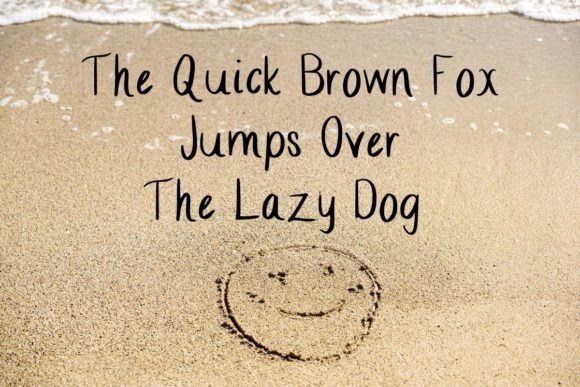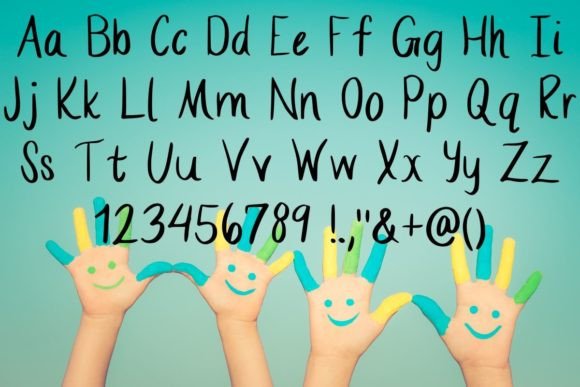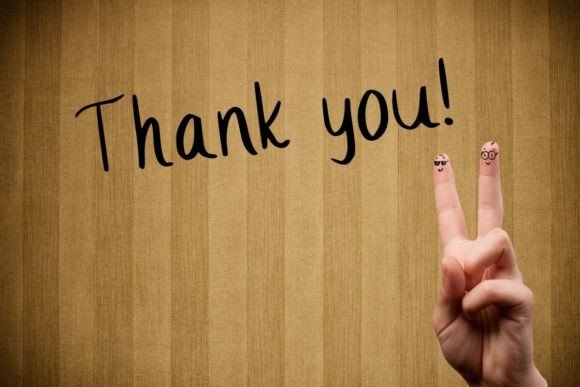
Introduction to Make Me Smile Font
Make Me Smile font will certainly make you smile and bring sweetness and fun to your creative projects.
It is perfect for invitations, journaling, and much more .